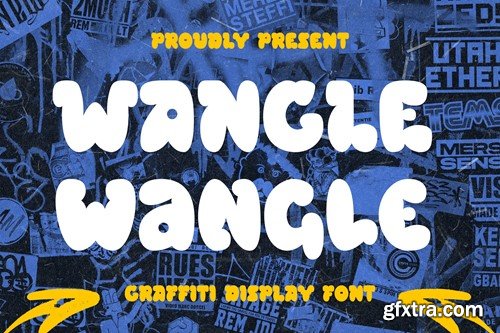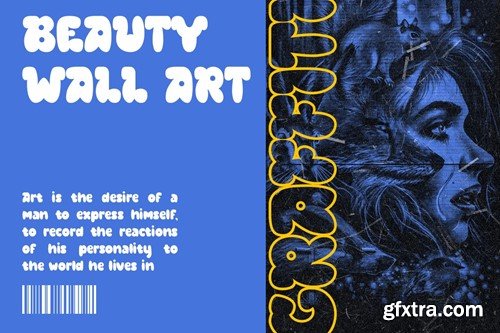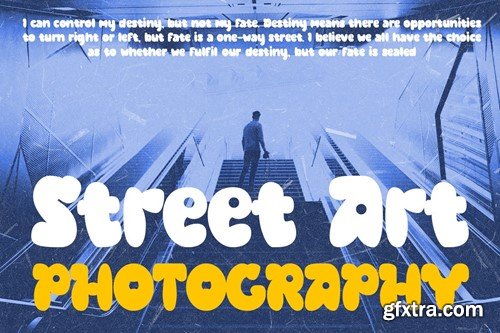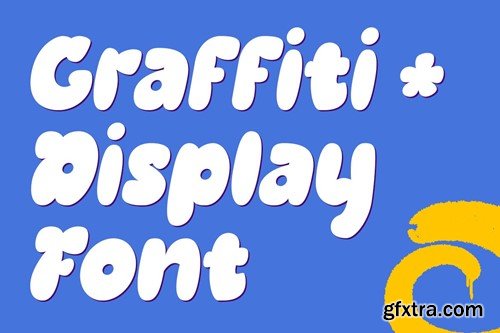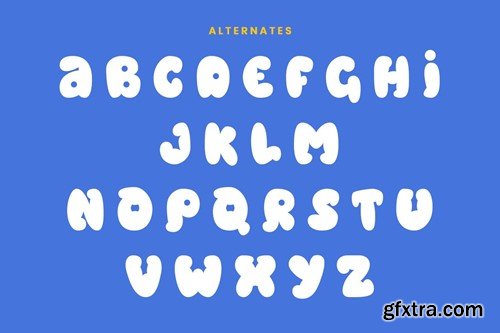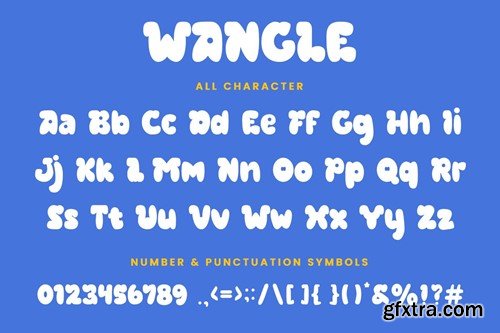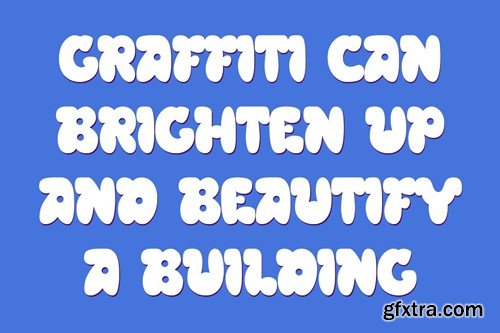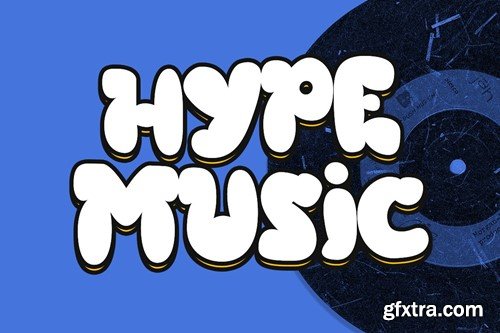
Wangle - 涂鸦展示字体 QR7E7ED
Wangle - Graffiti Display Font
Wangle - Graffiti Display Font contains a lowercase, uppercase, symbol, and also supports multi-language. There’s a lot of ligature in this font. Wangle - Graffiti Display Font also comes with ligatures, stylistic alternates and many more. this font suitable for fashion, branding, catalog and other design that you want.